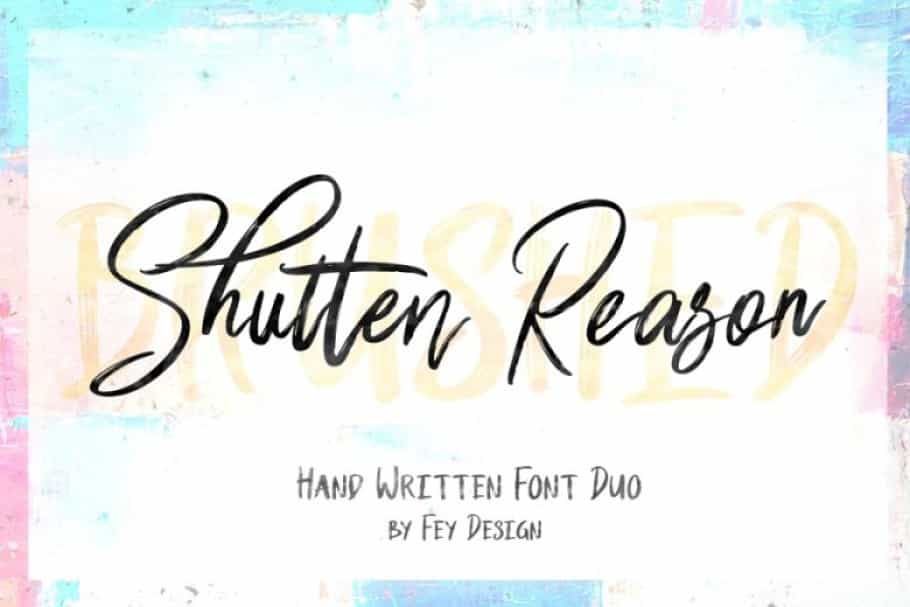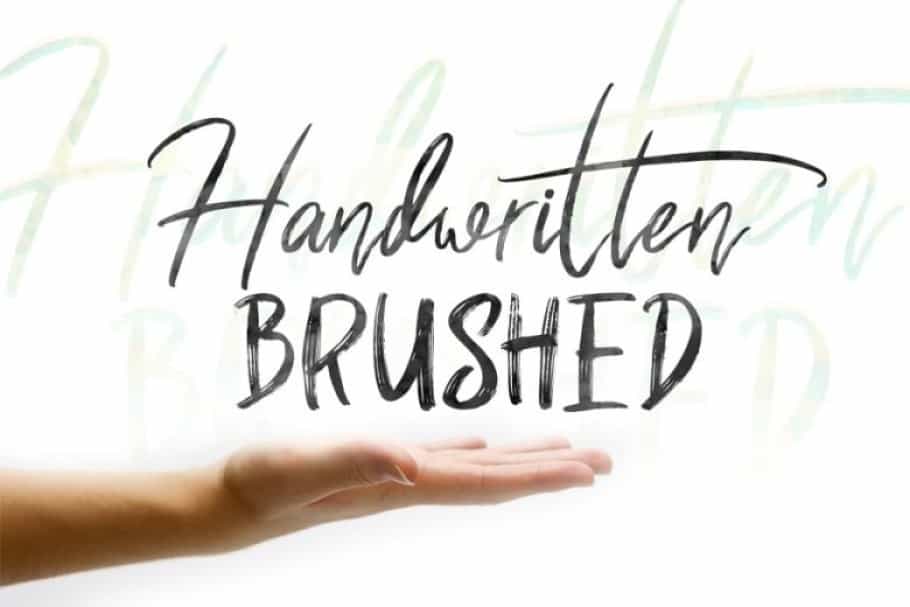
Discover Shutten Reason Font Duo, part of the Brush Handwritten collection—a versatile and unique font perfect for adding a personal touch to your projects. Download it for free and enjoy crafting designs with style, from invitations to social media posts. This font is available exclusively for personal use, giving you the freedom to create without limits. Unlock your creativity with Shutten Reason Font Duo today!
Shutten Reason – the bold and fine-tuned script font by FeyType. In addition to script fonts and sans characters, it also contains the Bari and Brush Style handlettering varieties. Good for many purposes including clothing, symbol, logo, for badges, stickers, printout media, etc.